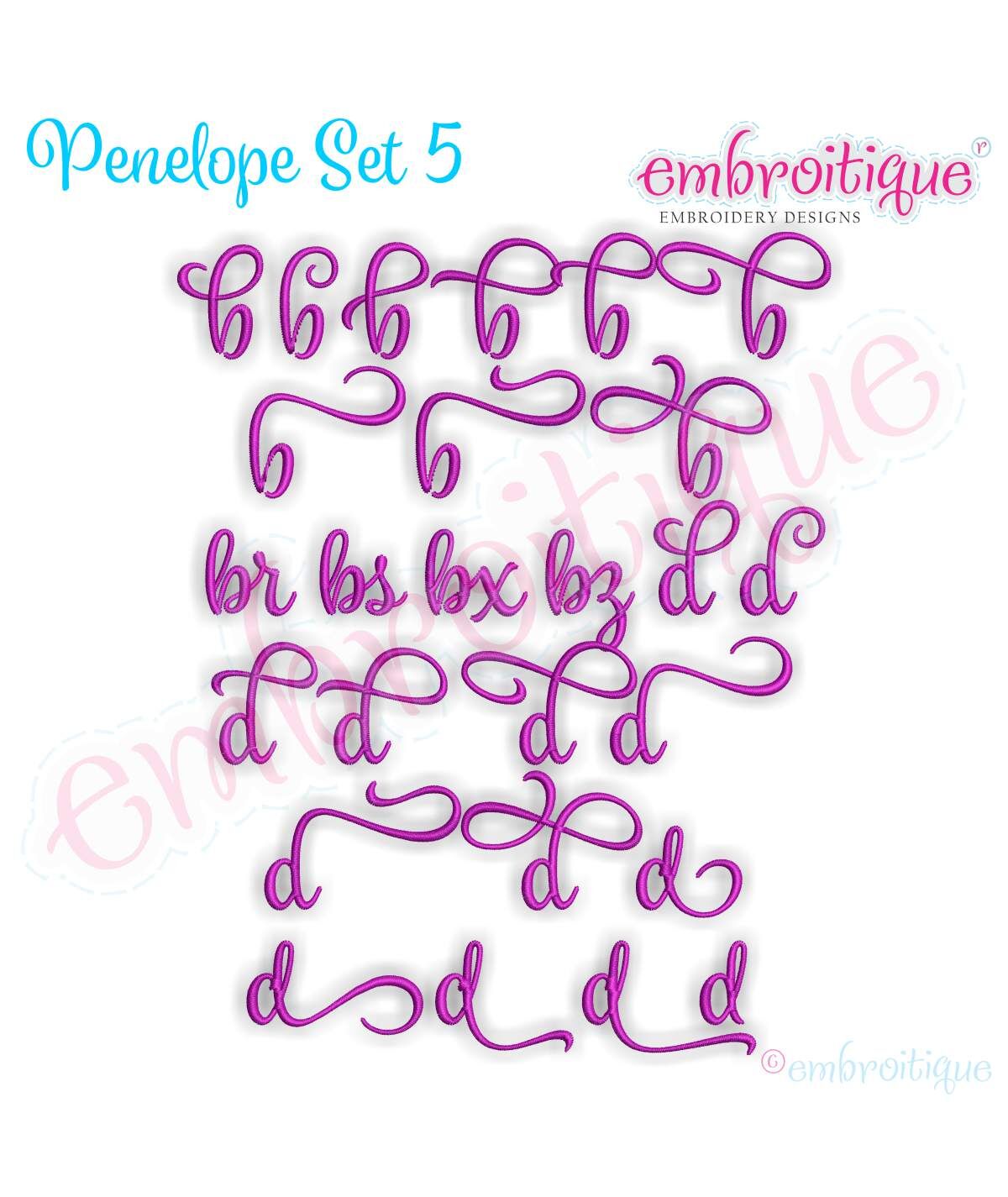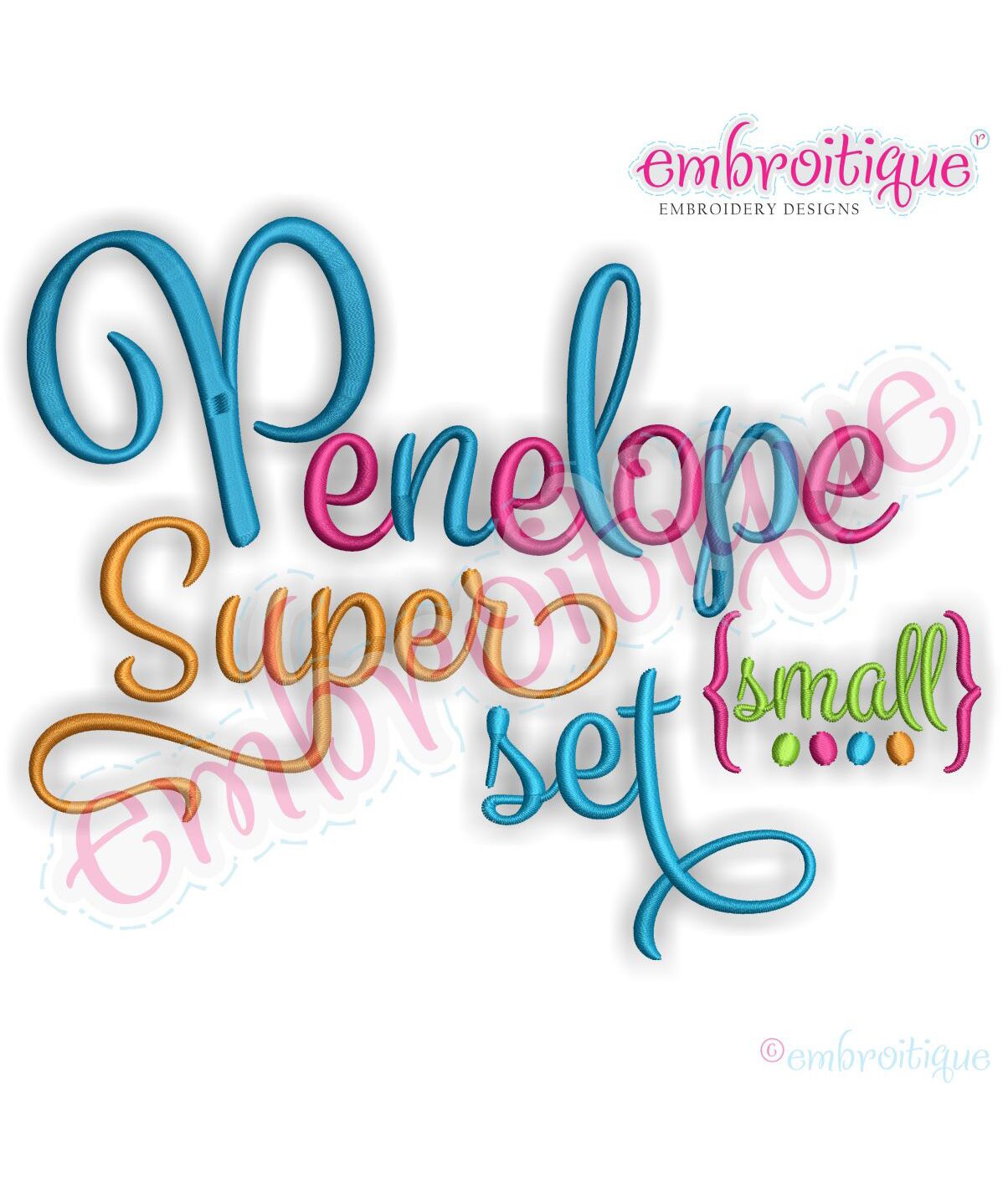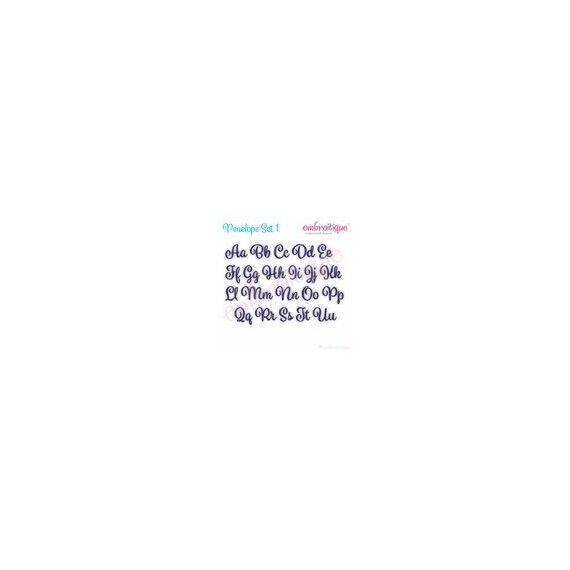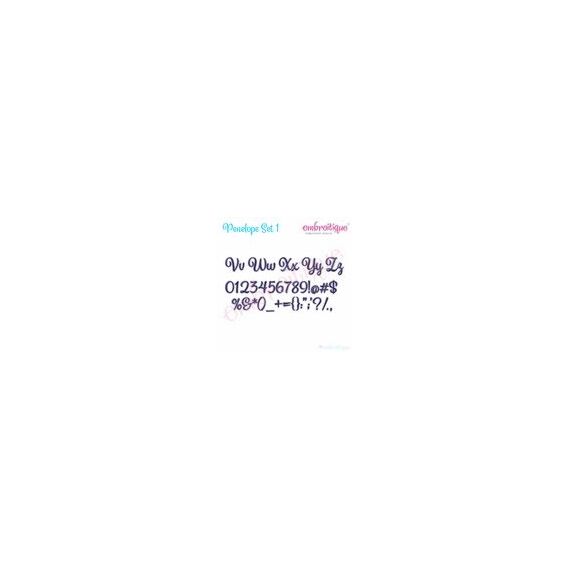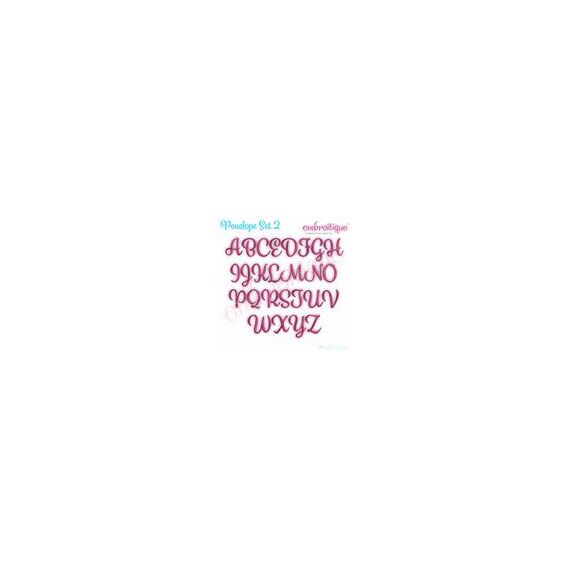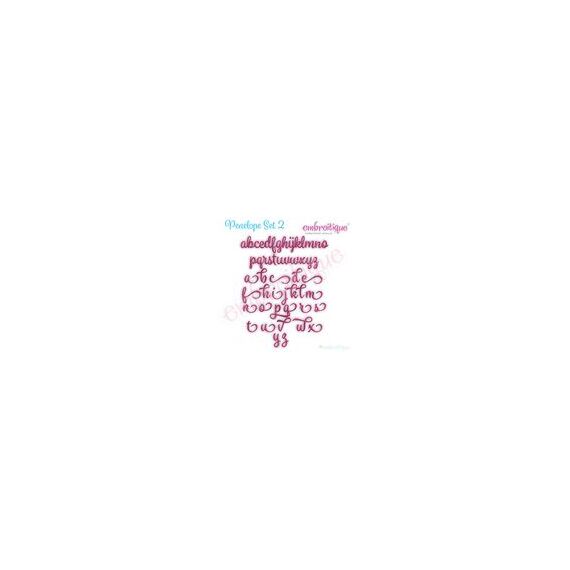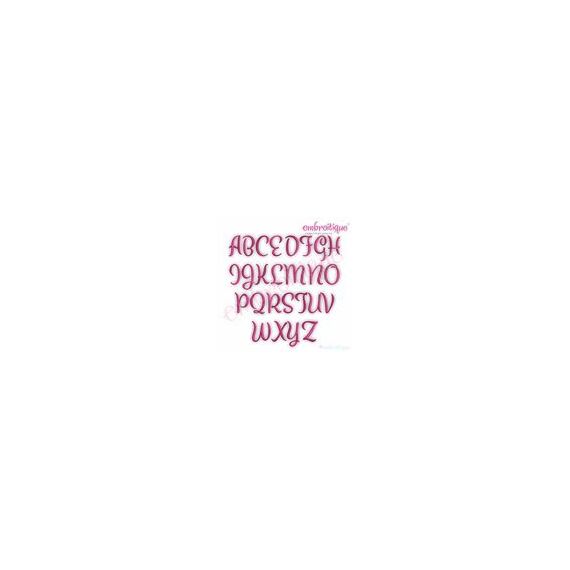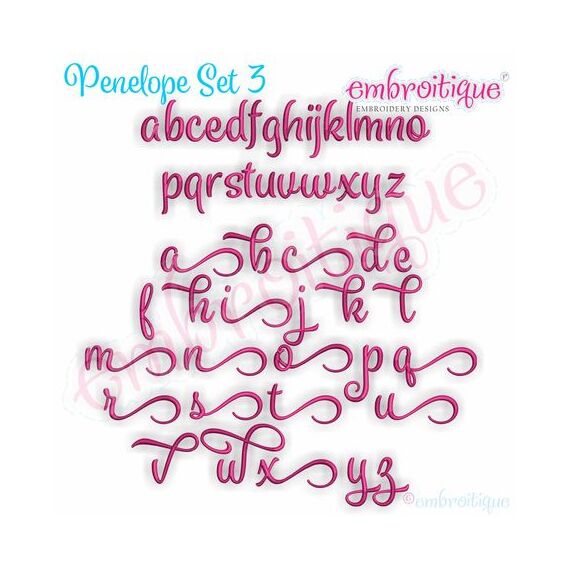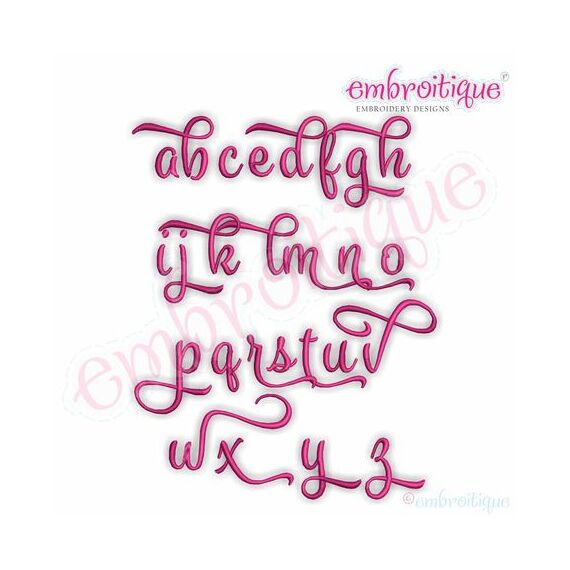
Penelope Super Set - Exclusive Calligraphy Script Monogram Alphabet Font for Machine Embroidery
Use this show stopping script to create beautiful wording and names a hundred different ways! .5", 1", 1.5", 2", & 2.5" sizes included.  This set will be one of your favorite "go-to" sets for years to come!Â